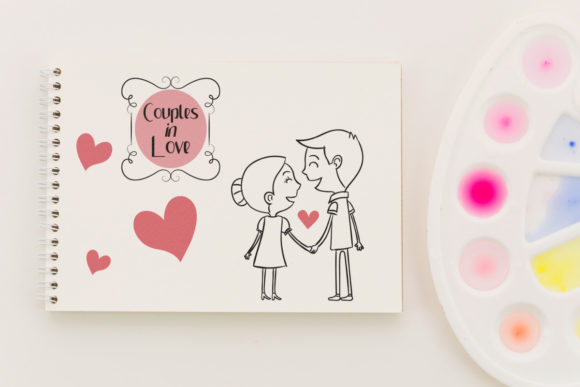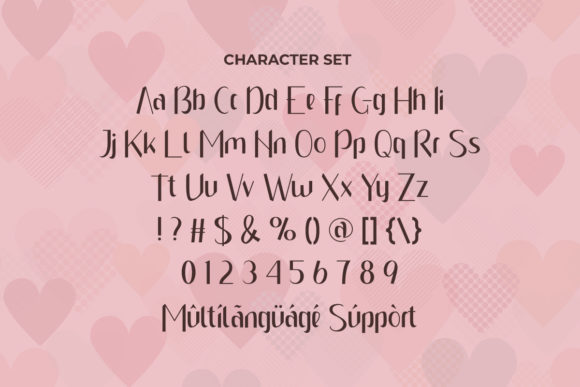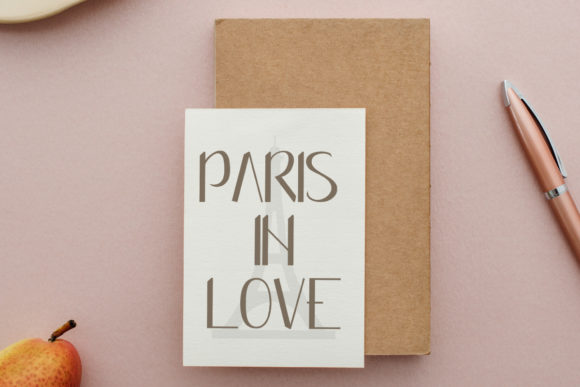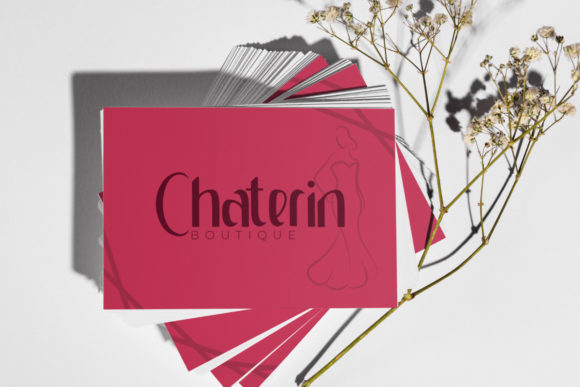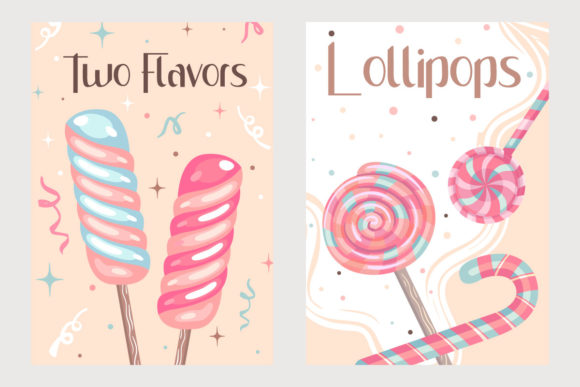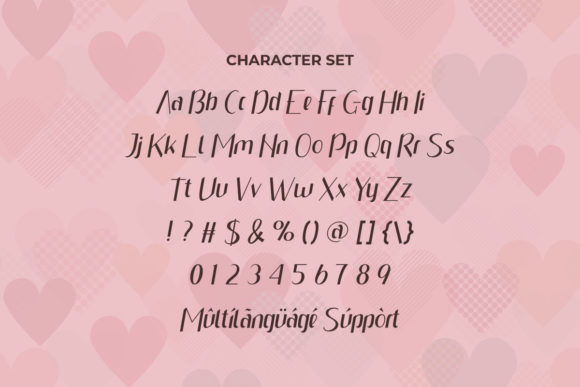
Introduction to Simple Couple Font
Simple Couple is a clean, simple and friendly handwritten font.
It looks stunning on wedding invitations, thank you cards, quotes, greeting cards, logos, business cards and every other design which needs a customized touch .
Key Features of Simple Couple Font